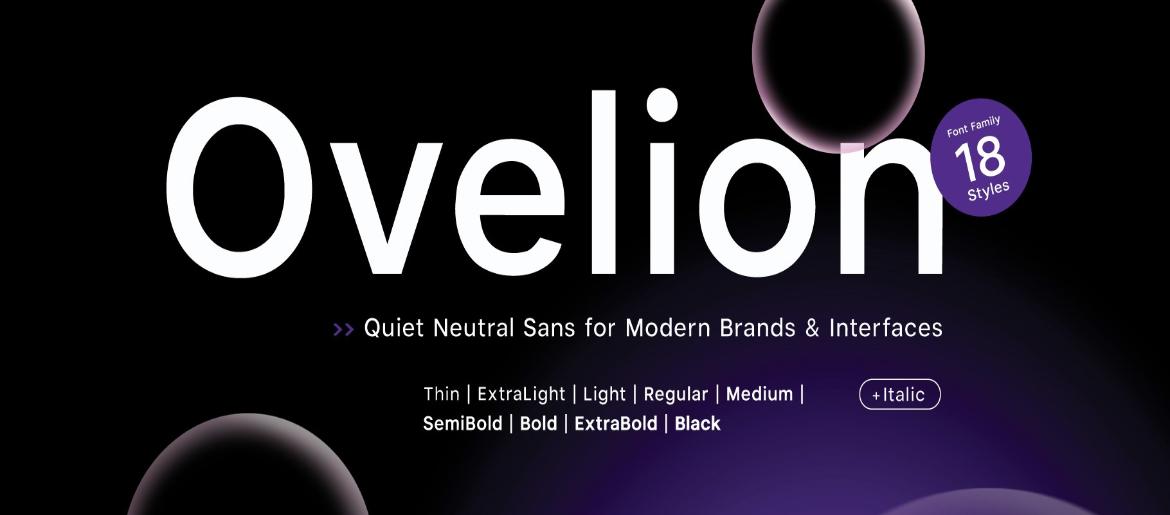
Ovelion Font
Ovelion font
Ovelion Font is a quiet, neutral sans-serif typeface created for clear and consistent communication. Designed with usability at its core, it offers excellent readability and balanced proportions across branding, digital interfaces, editorial layouts, and corporate design. Ovelion performs beautifully on both screen and in print, delivering a clean, professional, and dependable visual presence.
➤ Font Name: Ovelion
➤ Designer: Syauqi Studio
➤ Style: Neutral Sans Serif